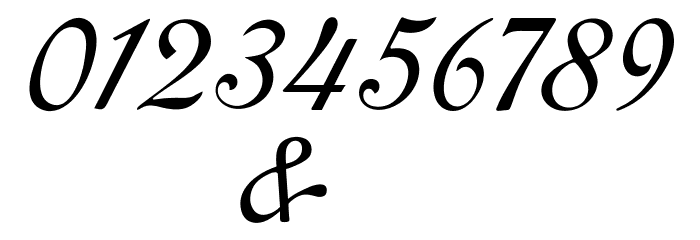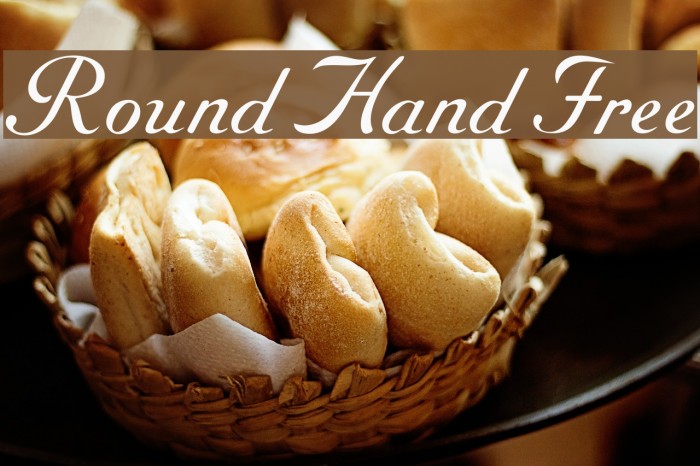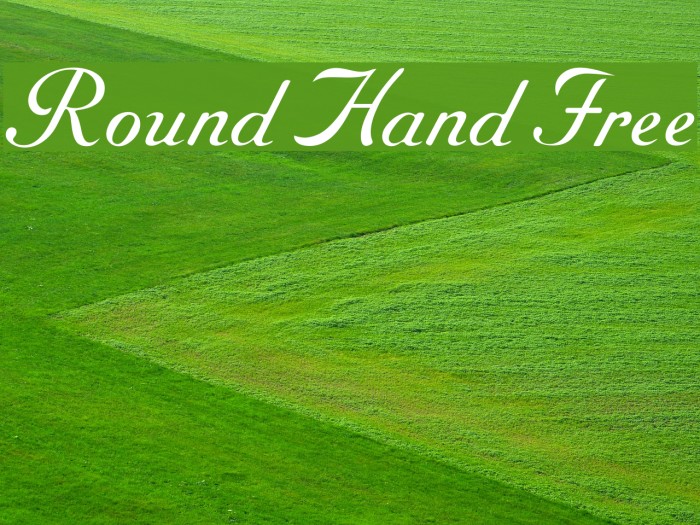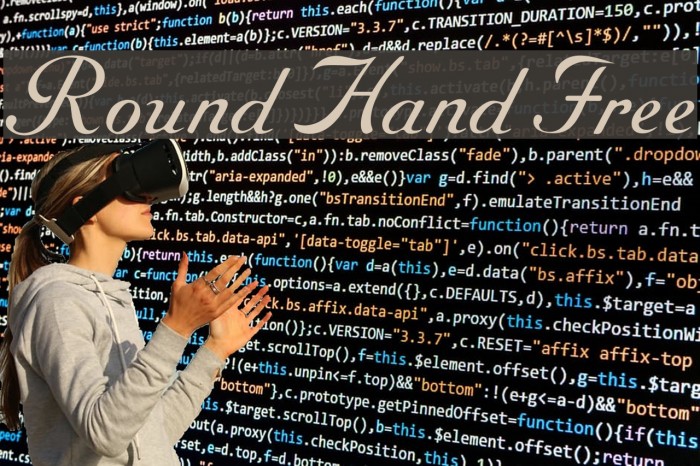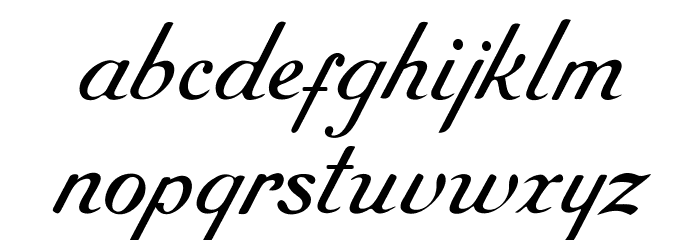
RoundHandFree Font
RoundHandFree Description
This elegant script font features flowing, cursive letters with a classic and sophisticated appearance. The uppercase letters are slightly more ornate, with sweeping curves and flourishes that add a touch of formality. The lowercase letters maintain a consistent flow, creating a harmonious and connected look. The numerals are styled to match the overall script aesthetic, with gentle curves and a refined finish. The ampersand is particularly stylish, embodying the graceful nature of the font. This typeface is well-suited for projects that require a touch of elegance and tradition, such as wedding invitations, formal event programs, or upscale branding materials.
An elegant script font with flowing, cursive letters and a classic appearance from Uncategorized fonts.
- Overall Style: Classic